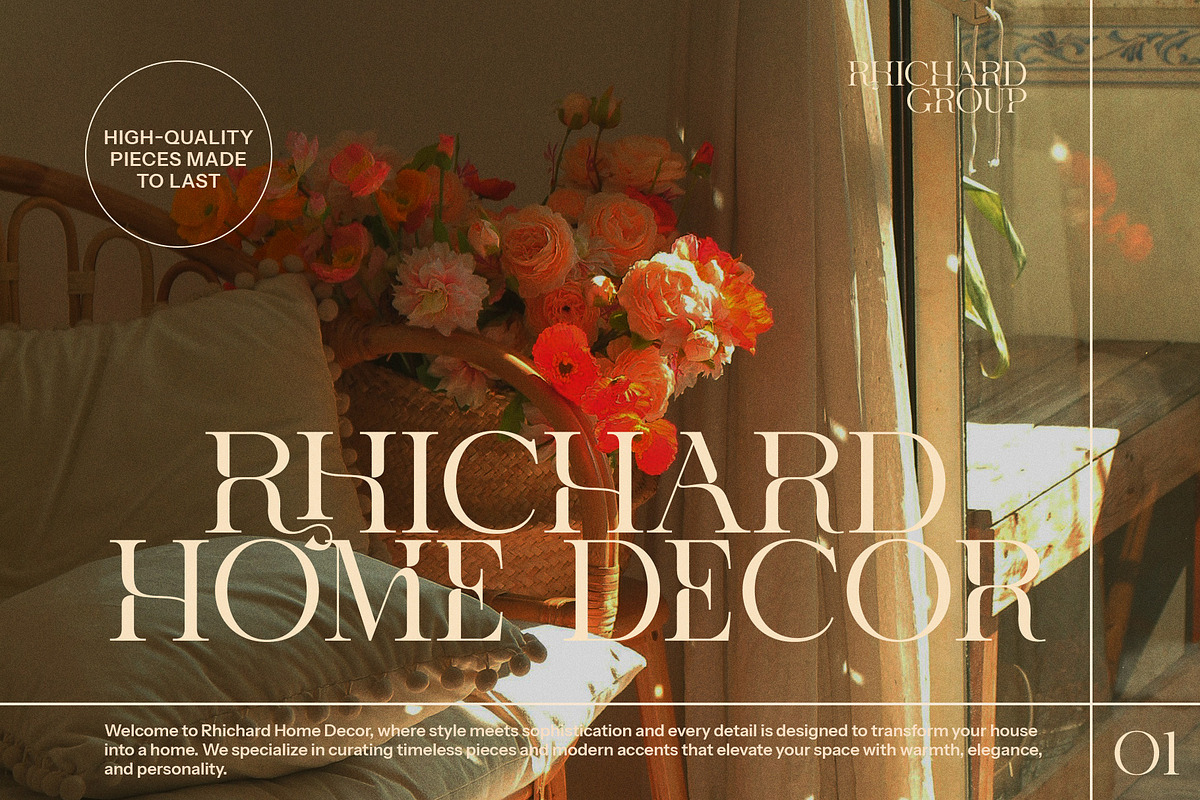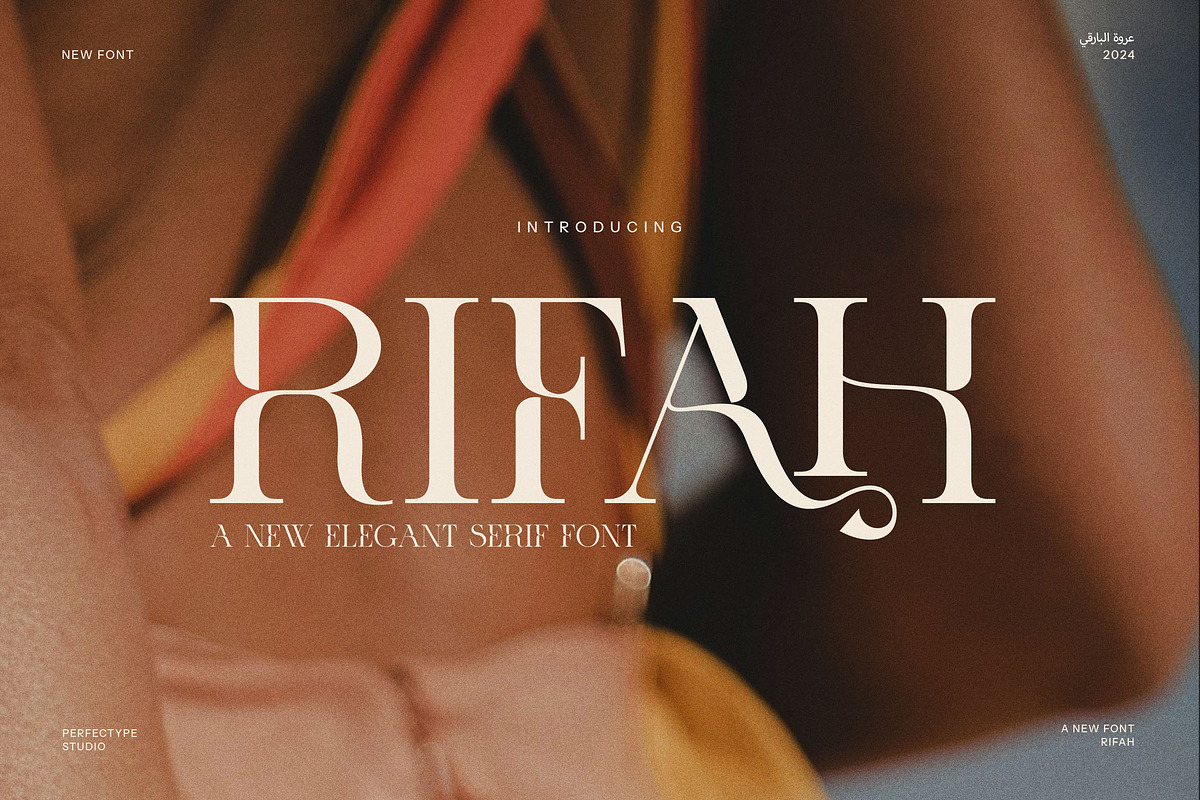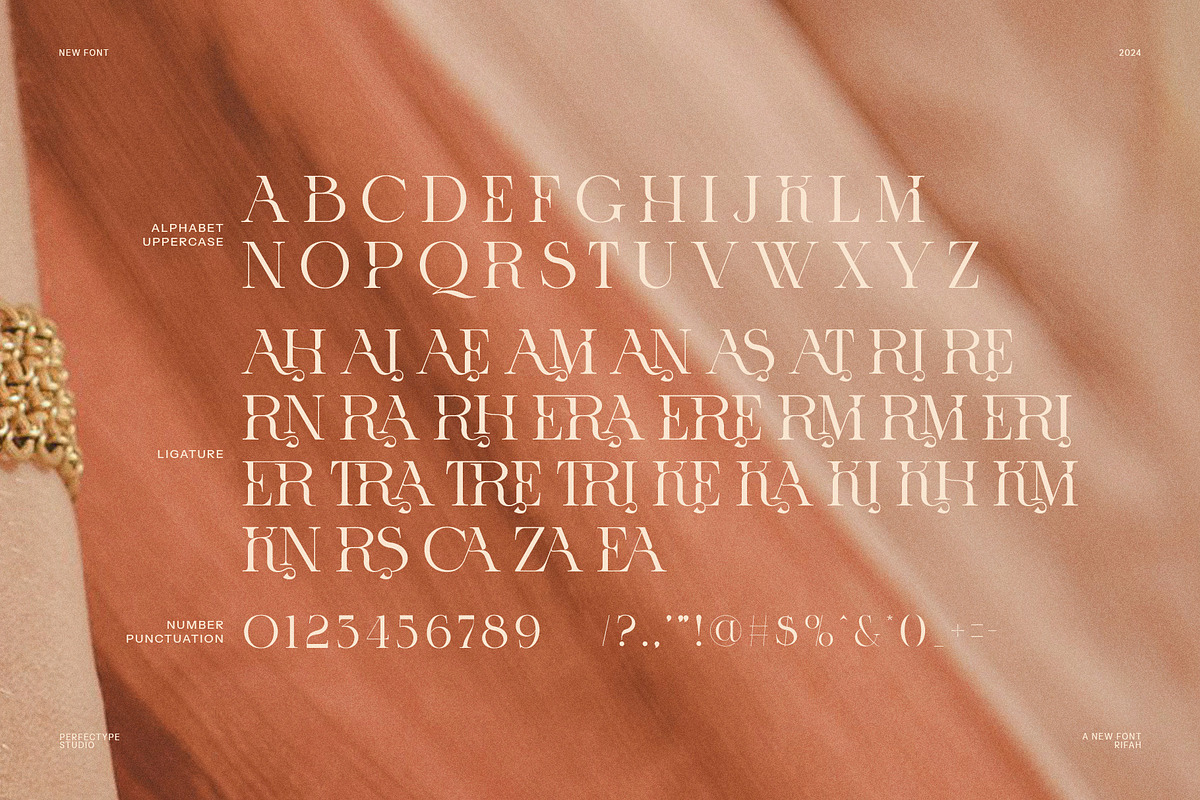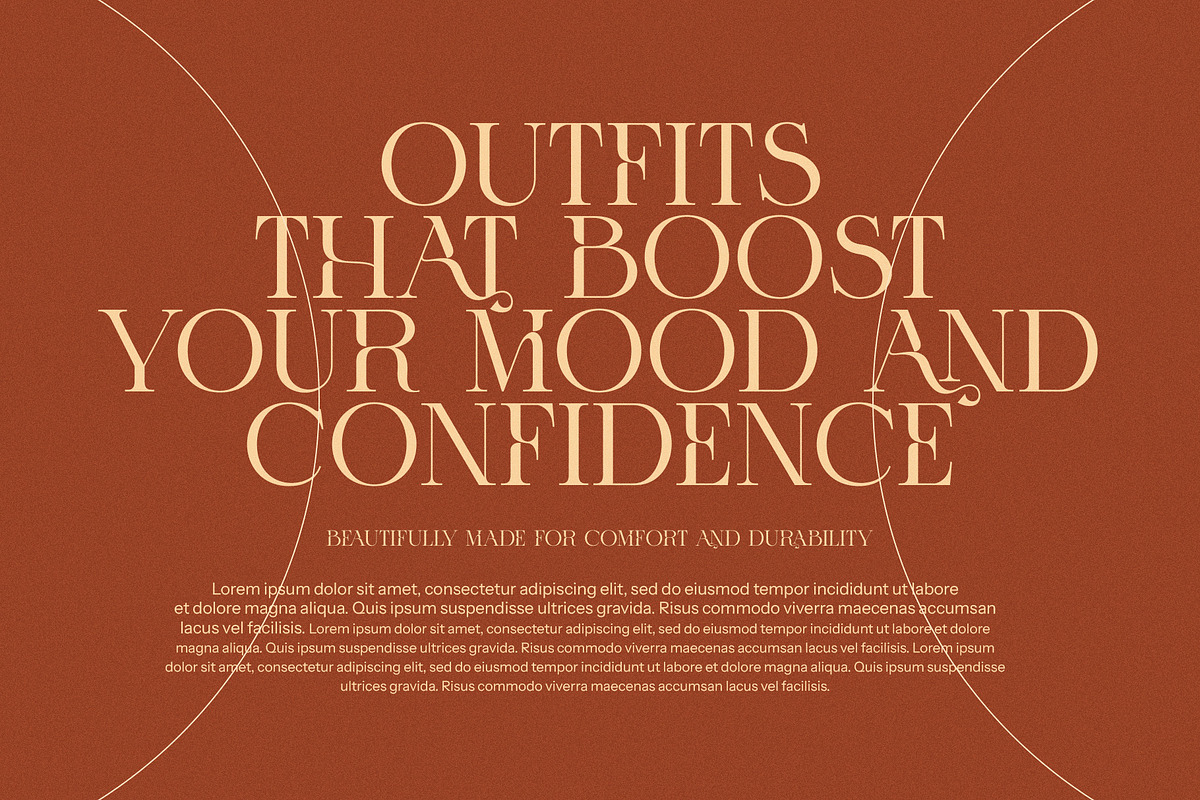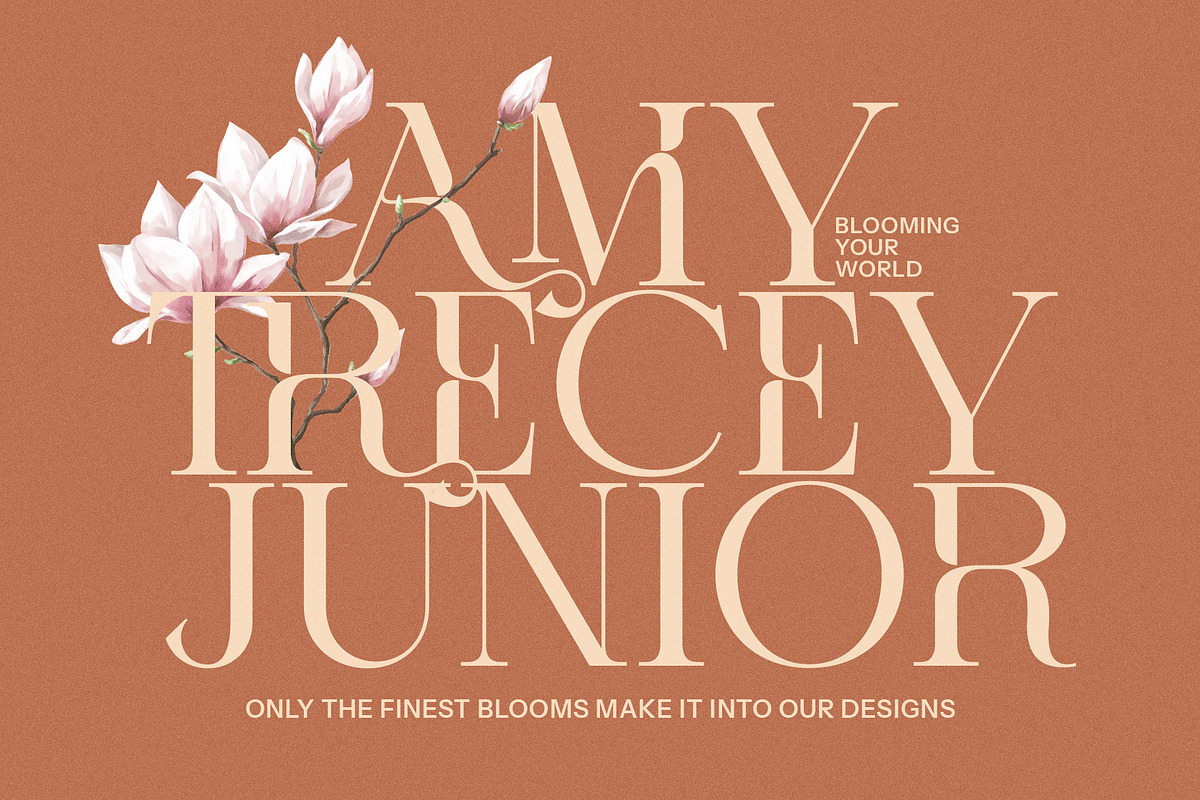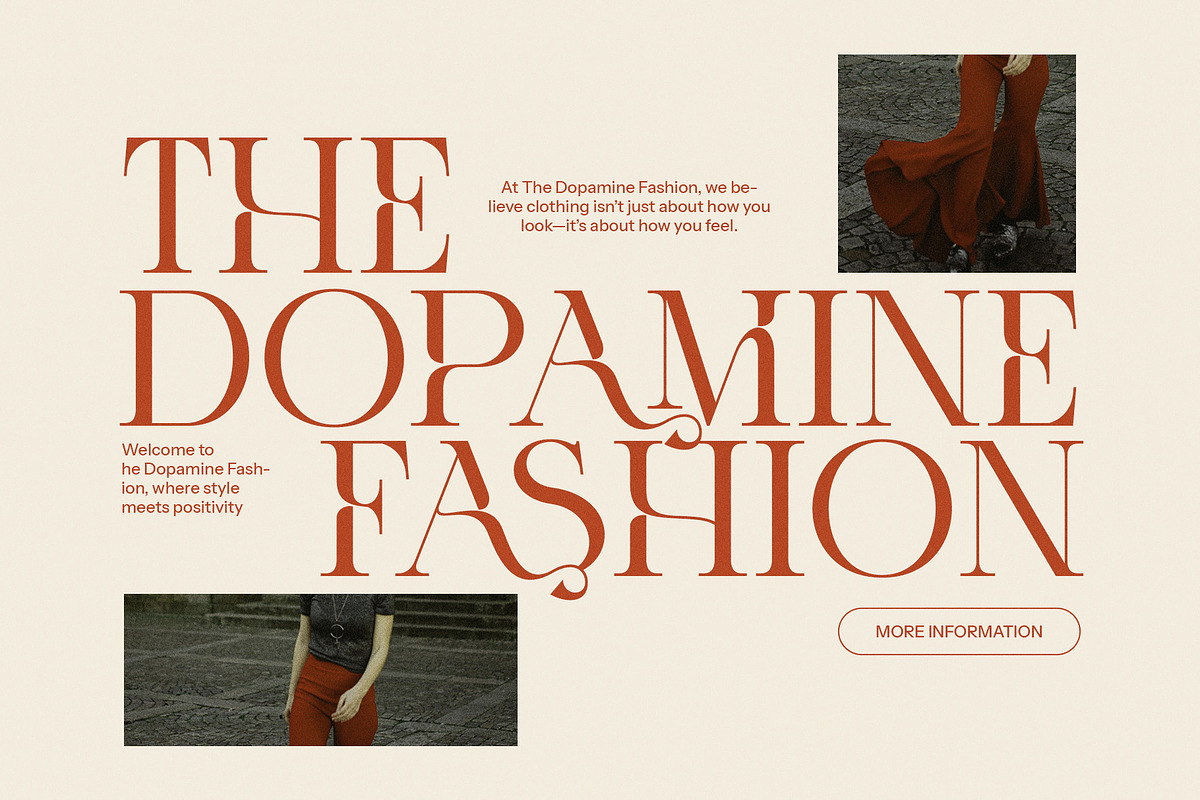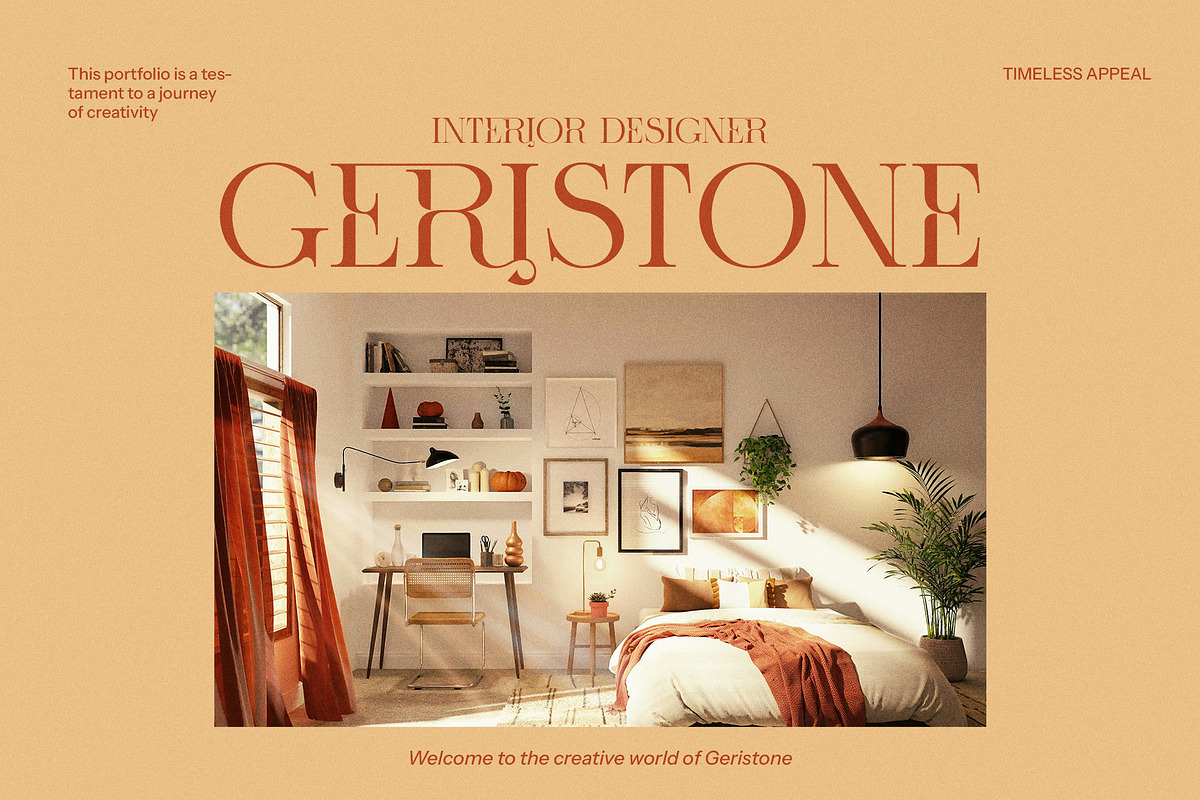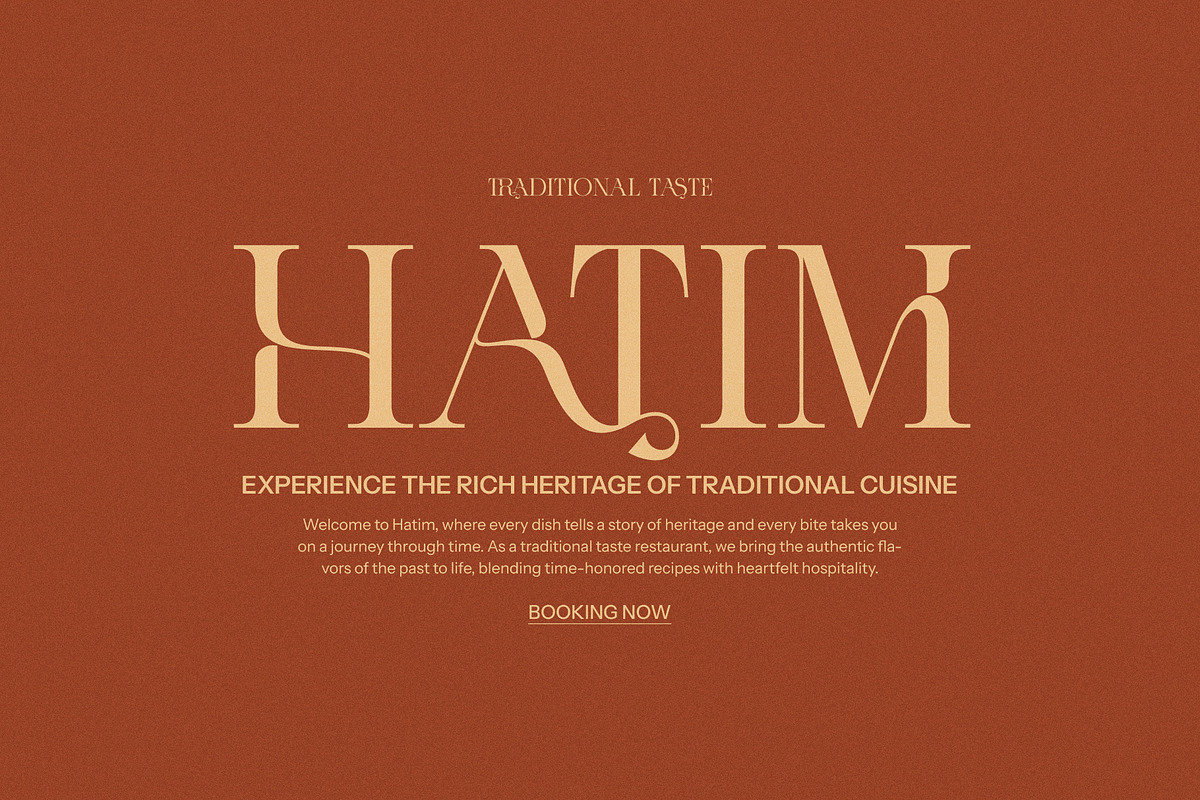
Rifah Elegant Serif Font
Rifah Elegant Serif Font is a modern, sophisticated typeface designed to bring a touch of refinement and grace to your projects. With its sleek and timeless serifs, Rifah combines contemporary style with classical elegance, making it an ideal choice for high-end branding, luxury websites, and upscale design work. Whether you’re crafting a logo, a website header, or a magazine layout, this font’s versatility and beauty ensure it leaves a lasting impression.
One of Rifah’s standout features is its stunning collection of ligatures and alternate letterforms. These unique stylistic variations offer designers the opportunity to create more personalized and artistic compositions, adding a distinctive flair to every project. The carefully crafted ligatures not only enhance the font’s visual appeal but also make it ideal for crafting premium, custom branding and editorial designs.
Rifah is perfect for a wide range of creative applications, from product packaging and advertisements to boutique logos and luxury food branding. Its elegant design and legibility make it equally effective for both print and digital formats, allowing it to shine across magazines, websites, and promotional materials. The font’s graceful balance of modern elegance and classic sophistication ensures it works seamlessly for high-end businesses, making it the perfect choice for brands looking to stand out with style.
For projects that require a refined yet contemporary touch, Rifah Elegant Serif Font offers an exceptional solution, elevating any design with its timeless charm and modern appeal.